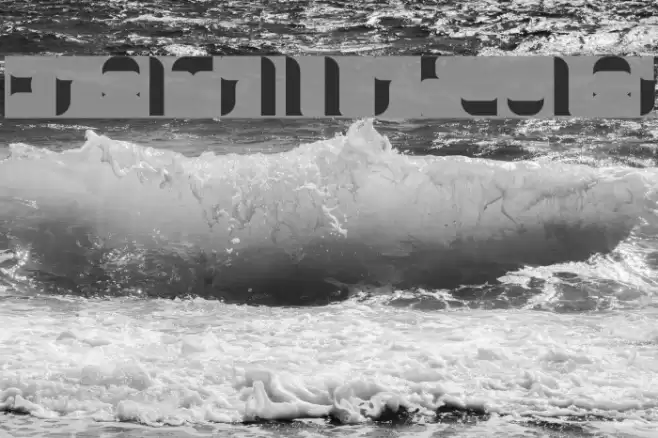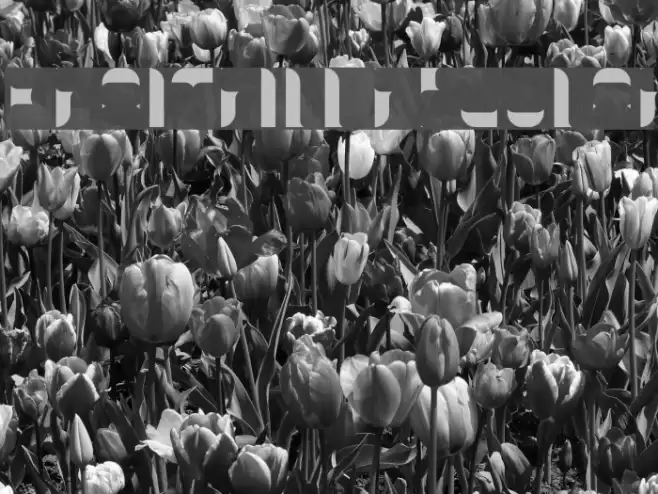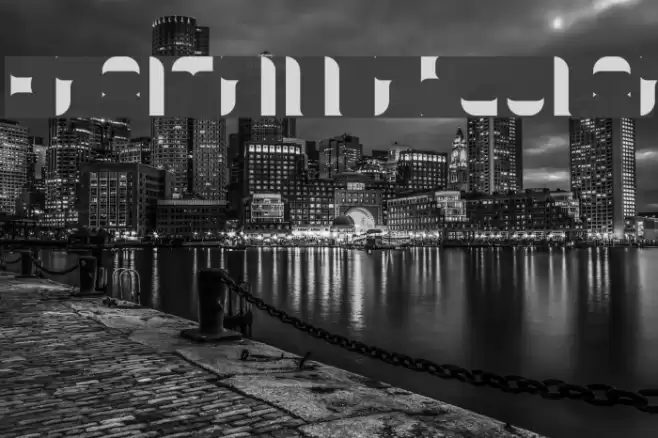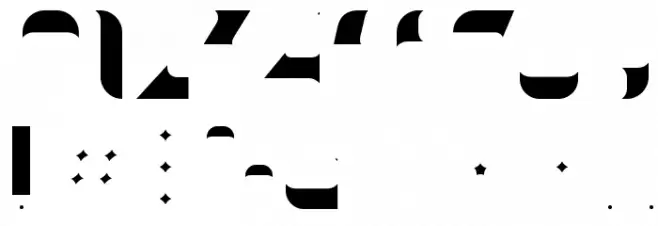
KraitFill-Regular Font
KraitFill-Regular Description
This font features a unique and modern design with a distinct geometric style. The characters are bold and have a filled appearance, creating a striking visual impact. The letterforms are constructed with sharp angles and clean lines, giving it a futuristic and edgy look. The uppercase and lowercase letters maintain a consistent style, while the numbers and special characters complement the overall design. The font's boldness and geometric shapes make it suitable for attention-grabbing headlines and logos.
A bold, geometric font with a modern and edgy style from Uncategorized fonts.
- Proposed Projects: Ideal for branding, logos, posters, and modern web design projects.